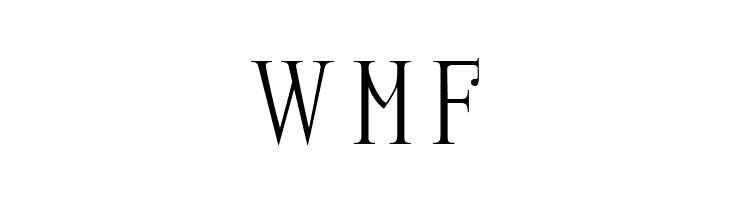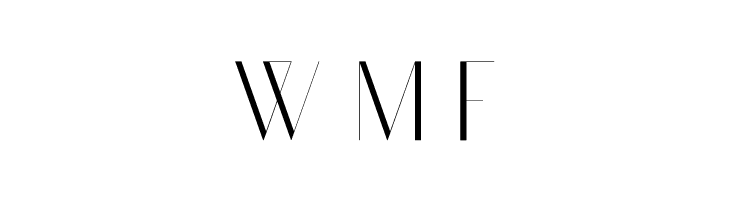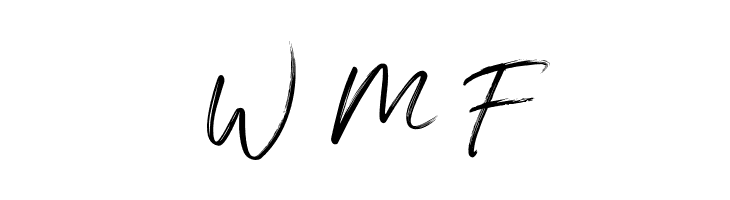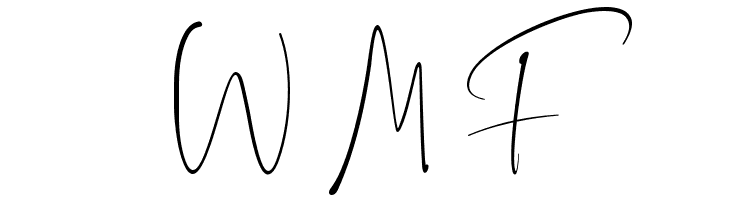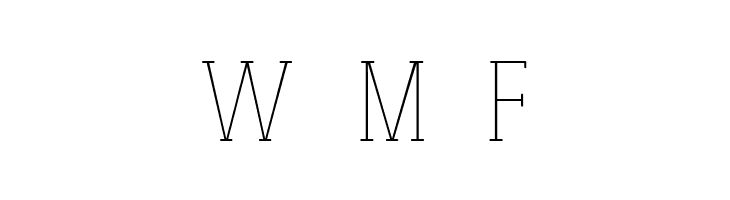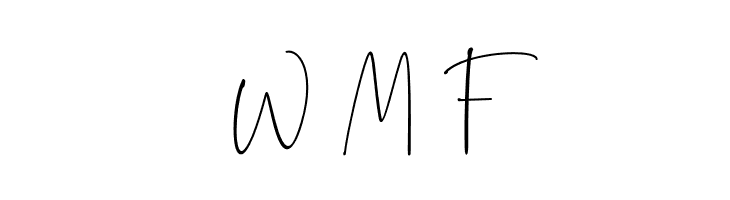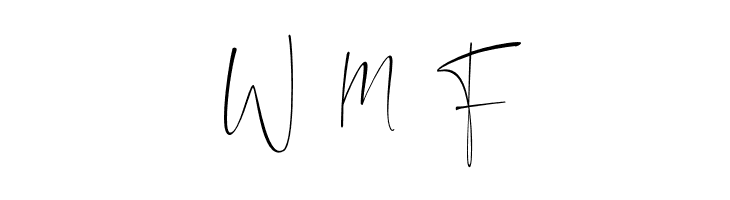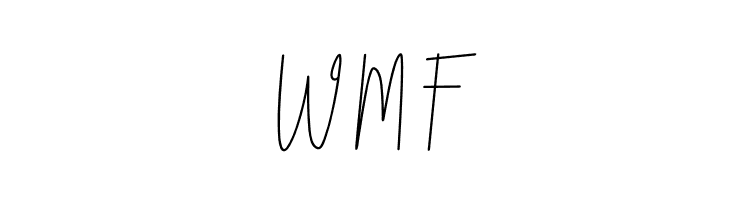
A tall, elegant serif font with playful curves and consistent flow.
A tall, narrow font with high contrast and elegant, modern styling.
A sleek, high-contrast font with elegant curves and modern style.
An elegant, light, narrow, and italicized font with high contrast and refined style.
An elegant, high-contrast, light, condensed italic typeface.
A sophisticated, condensed italic typeface with high contrast and sharp serifs.
A refined, high-contrast light italic font with elegant, elongated characters.
An elegant, high-contrast typeface with elongated, stylish characters.
A hand-drawn, sketch-like font with irregular edges and varying stroke thickness.
A hand-drawn, organic font with a playful and artistic style.
A modern, elongated font with narrow characters and clean lines.
A playful, handwritten font with light, airy strokes and a casual style.
A playful, elongated font with narrow characters and a whimsical style.
A graceful, calligraphic script font with elegant flourishes.
An elegant, flowing script font with a cursive, handwritten style.
A modern, elegant script font with flowing, cursive letters.
A lively and flowing script font with elegant, fluid letterforms.
A graceful script font with flowing, interconnected letters and delicate loops.
A playful, whimsical font with flowing, cursive-like characters and elegant loops.
A fluid and elegant script font with connected, flowing strokes.
A clean, elegant font with thin, uniform strokes and a modern, minimalist aesthetic.
A whimsical script font with tall, narrow uppercase and flowing cursive lowercase letters.